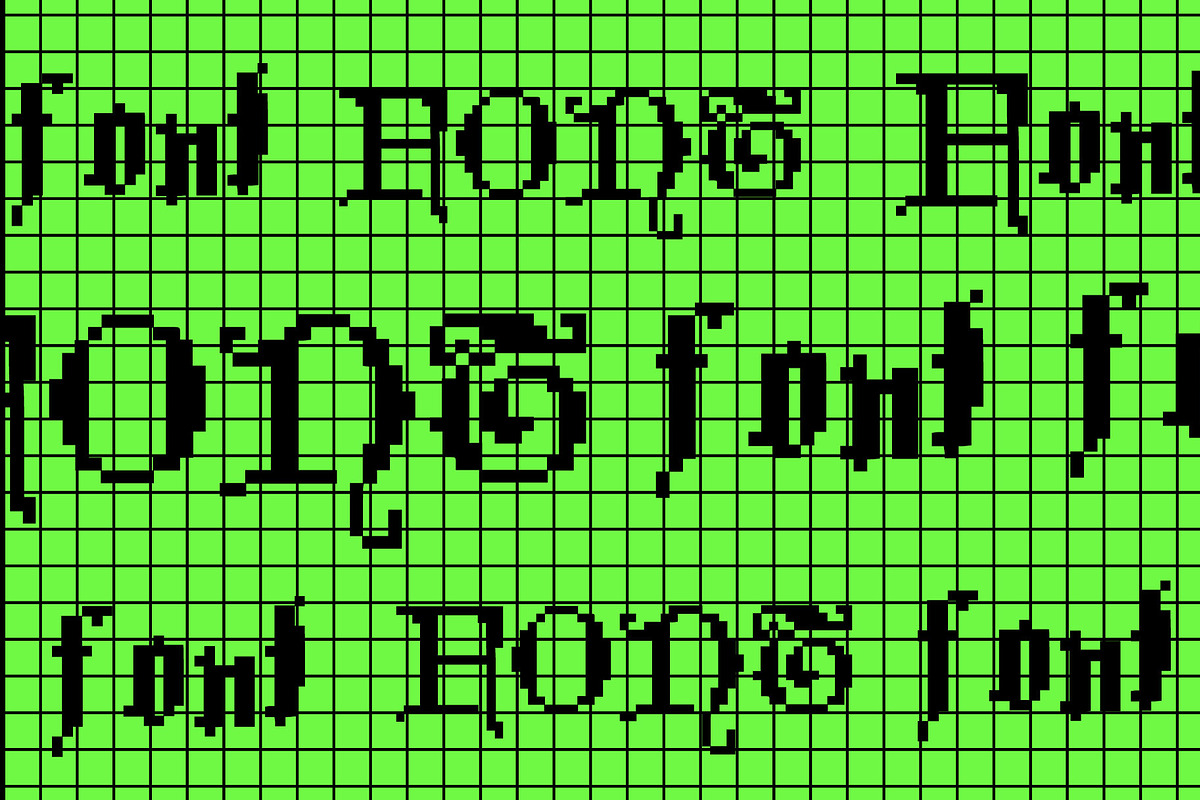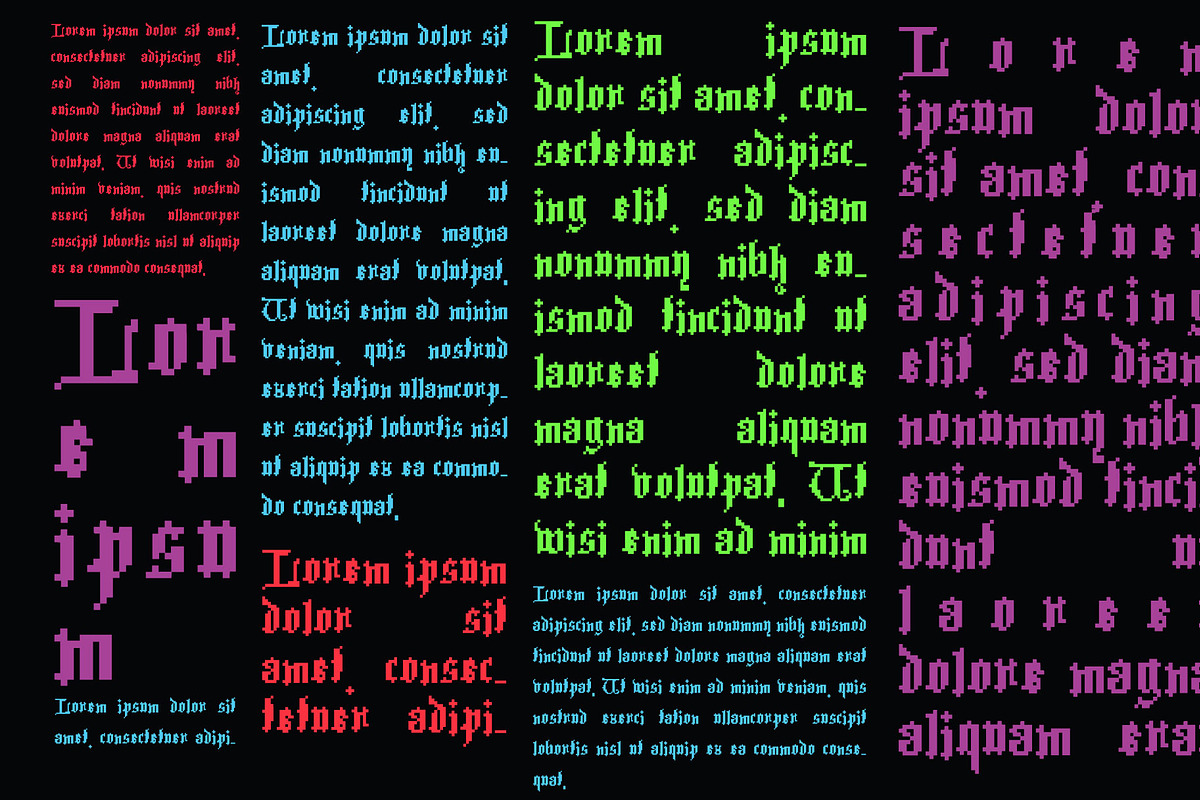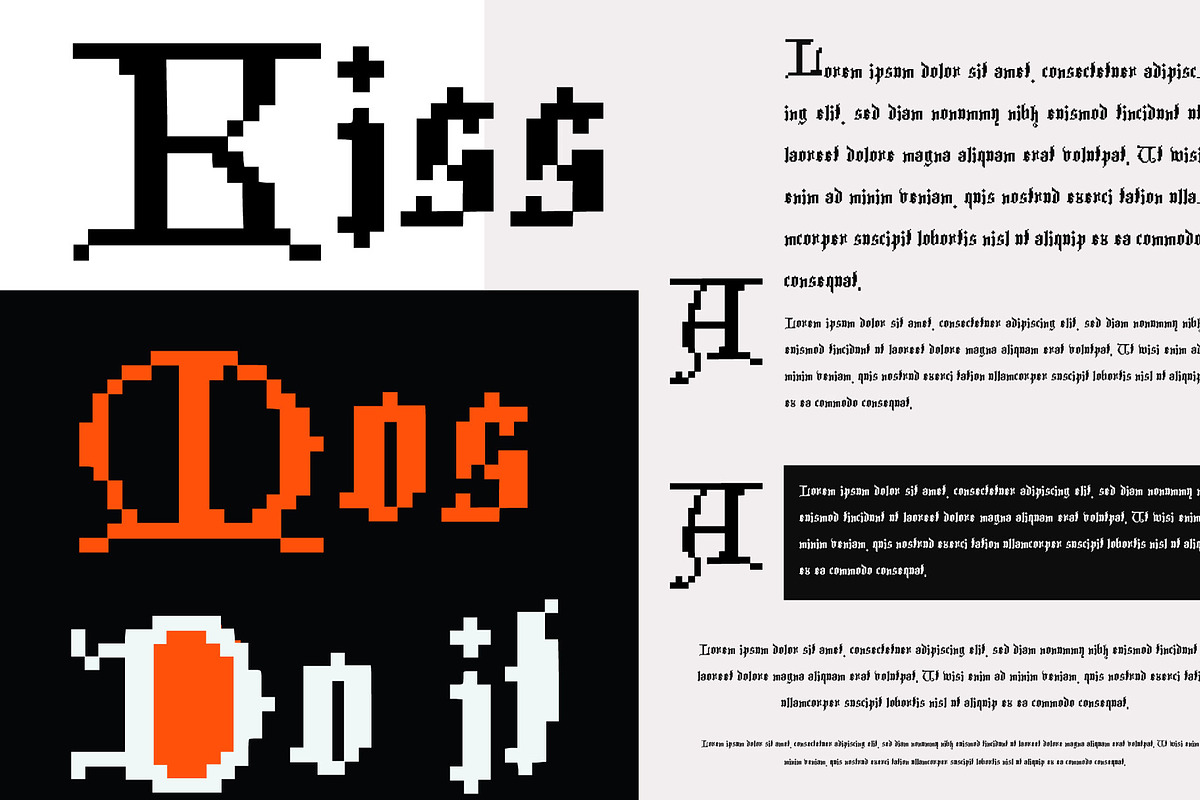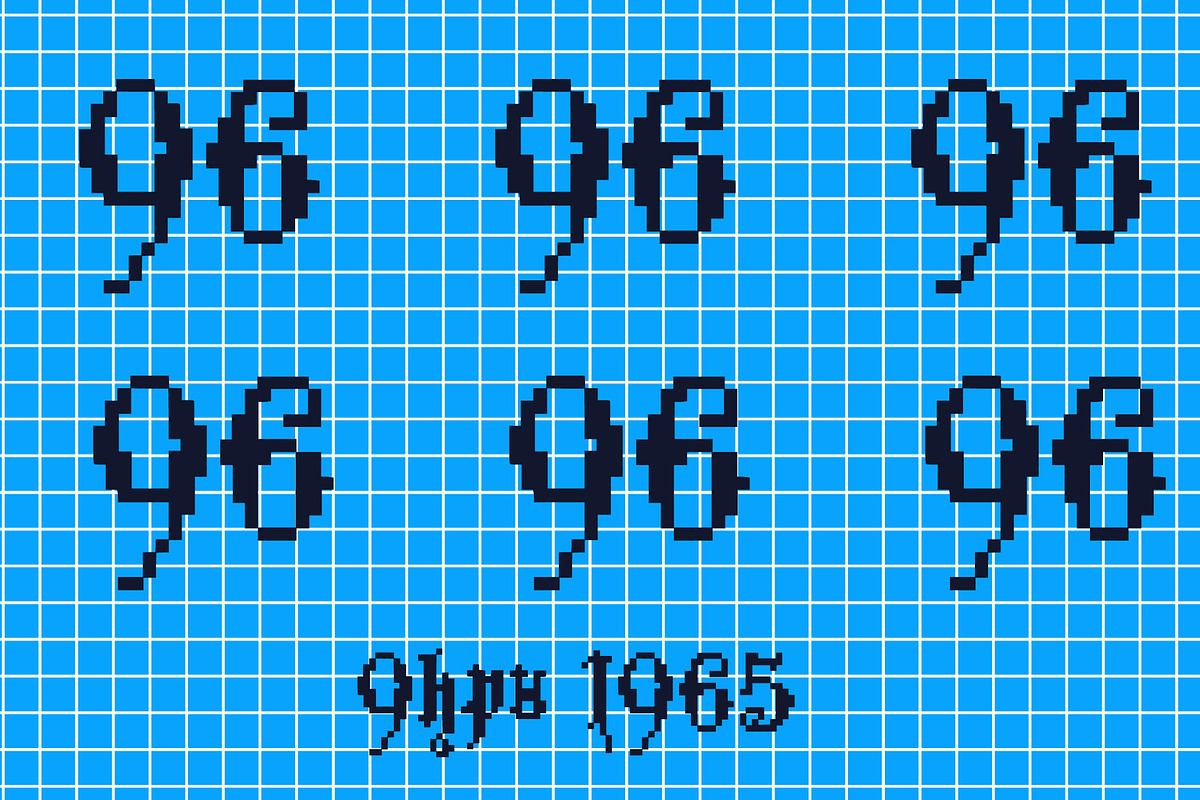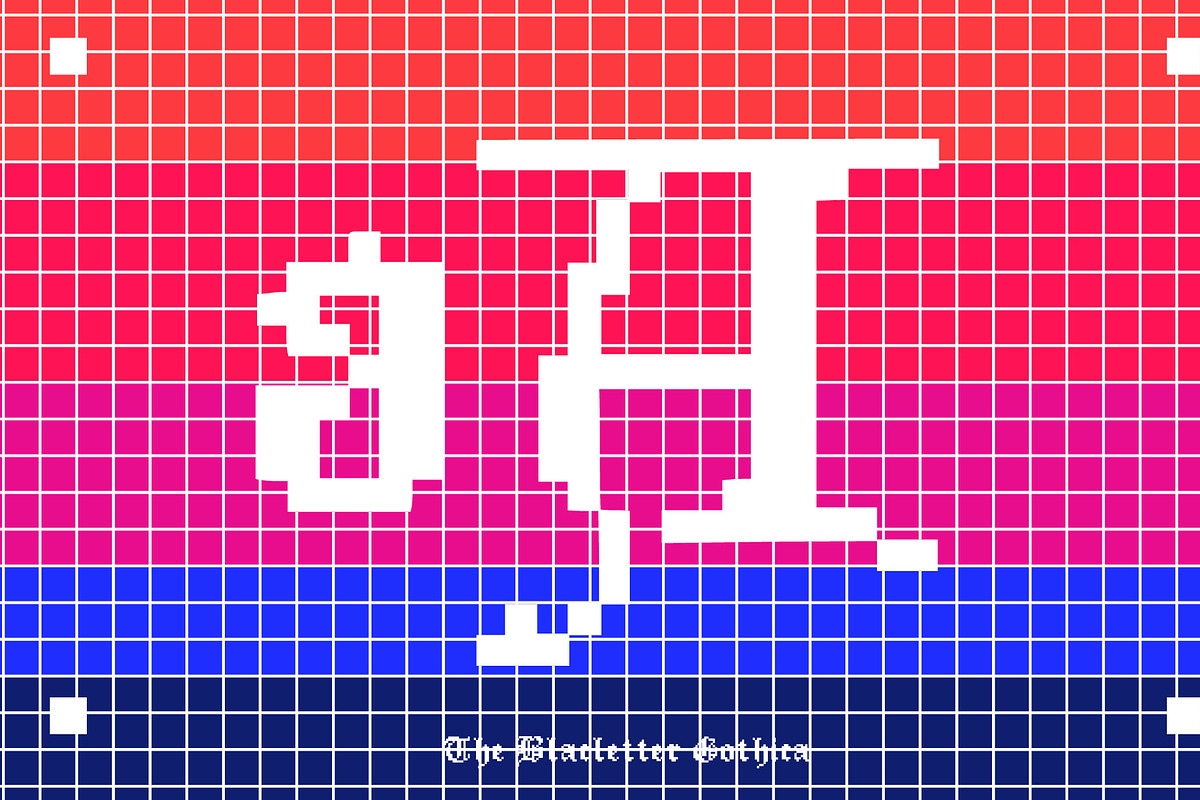
Ghotic Letter Pixel
The New 8 Bit Pixel
Ghotic Letter Pixel
Blackletter (sometimes black letter or black-letter), also known as Gothic script, Gothic minuscule or Gothic type, was a script used throughout Western Europe from approximately 1150 until the 17th century